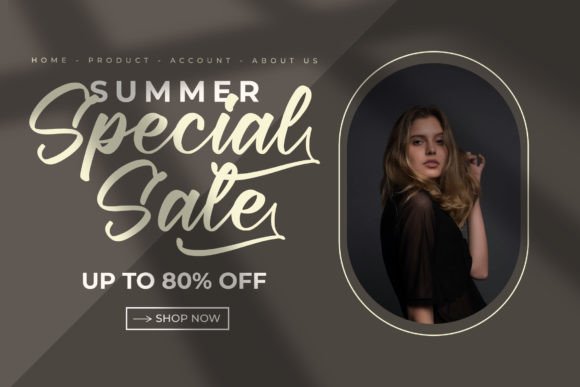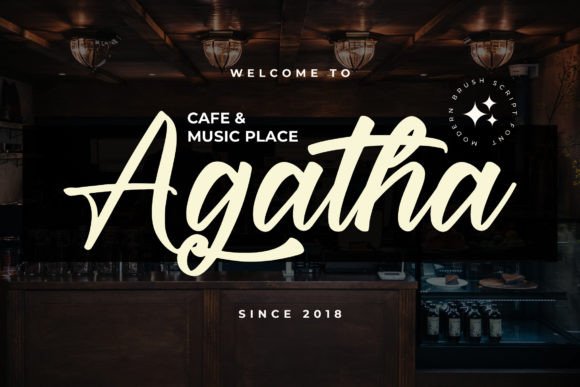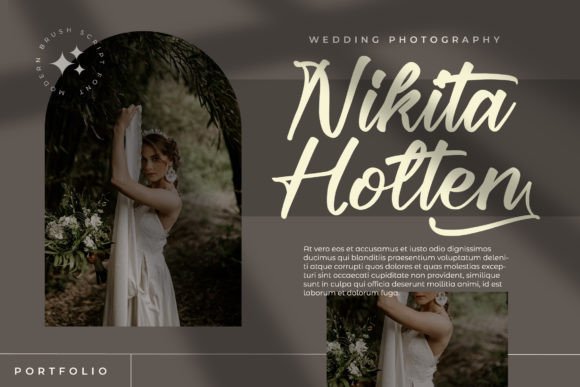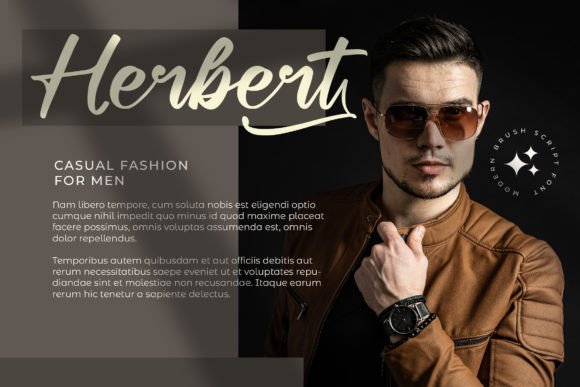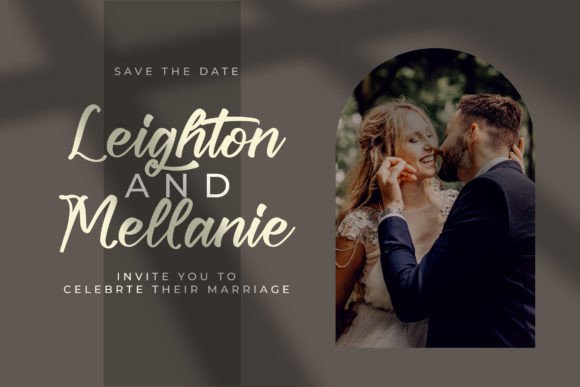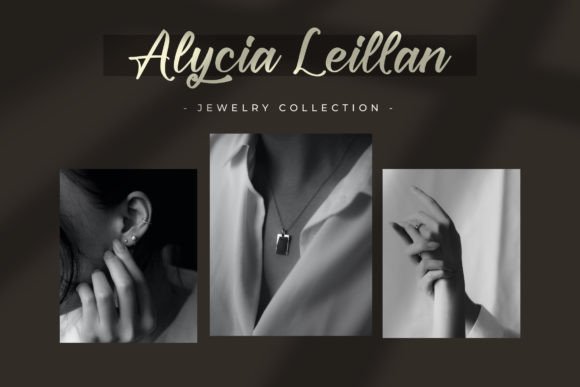
The Designer’s Delight: Bricyte Howela Font
I’ll never forget the time I was working on a project for a client who wanted a font that would make their brand stand out. I had spent hours browsing through my font library, but nothing seemed quite right. That’s when I stumbled upon Bricyte Howela, a dazzling brush script font that has since become a staple in my design toolkit. In this article, I’ll share my experience with Bricyte Howela, its features, and how to make the most of it in your designs.
- ✨ Neatly crafted and highly detailed: Bricyte Howela’s brush script style is meticulously designed, giving it a premium feel that’s perfect for high-end branding, packaging, or advertising.
- ✅ Versatile: Whether you’re working on a project for a fashion brand, a food blog, or a lifestyle magazine, Bricyte Howela adapts seamlessly to any topic.
- 💫 Unique character: This font has a distinct personality that sets it apart from more generic script fonts.
While Bricyte Howela is an exceptional font, there are a few things to keep in mind:
- 🤔 Legibility at small sizes: Like many script fonts, Bricyte Howela can be a bit tricky to read at small sizes. It’s best used at larger sizes, such as headings or titles.
- ⚠️ Overuse: While Bricyte Howela is stunning, using it excessively can make your design look cluttered. Balance is key.
Bricyte Howela was inspired by the works of Jessica Hische, a renowned lettering artist known for her beautiful, hand-painted typography. The font’s creator aimed to capture the essence of Hische’s style, blending traditional brush script techniques with modern digital tools.
| Author | Glorytype Studio |
A: Bricyte Howela is versatile and can be used for a wide range of projects, including branding, packaging, advertising, and editorial design.
A: Bricyte Howela comes in a single weight, but its OpenType features allow for some flexibility in terms of styling.